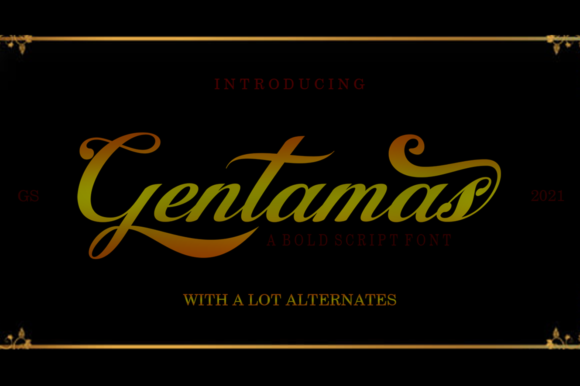
Introducing Gentamas, the remarkable script font that will transform your digital creations into exquisite masterpieces. Immerse yourself in the world of hand lettering, where every stroke tells a story and every word carries a unique charm. Gentamas unlocks a treasure trove of creative possibilities, empowering you to craft captivating headlines, logos, and designs that leave a lasting impression.
With its bold and expressive character, Gentamas captures the essence of vintage elegance, adding a touch of nostalgia to your projects. Whether you're a seasoned designer or just starting your creative journey, Gentamas is your perfect companion, guiding you towards stunning results.
This PUA-encoded font grants you effortless access to a comprehensive collection of glyphs and swashes, allowing you to unleash your imagination and create designs that captivate and inspire. Gentamas is more than just a font; it's an invitation to embark on an artistic adventure, where your creativity knows no bounds.
Be it a heartfelt message, a powerful statement, or an eye-catching logo, Gentamas transforms ordinary text into extraordinary expressions. Its versatility extends across a wide spectrum of design projects, from branding and marketing materials to social media graphics and personal artwork.
Embrace the allure of Gentamas and witness the transformation of your designs. Let your creativity flourish as you craft captivating visuals that resonate with your audience. Gentamas is not just a font; it's a gateway to a world of endless creative possibilities, waiting for you to explore.